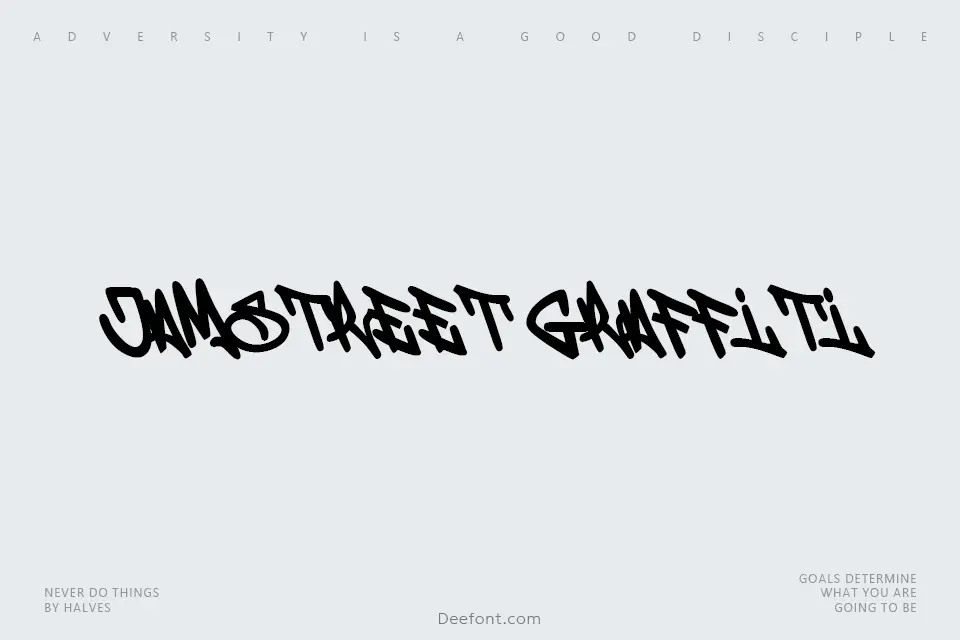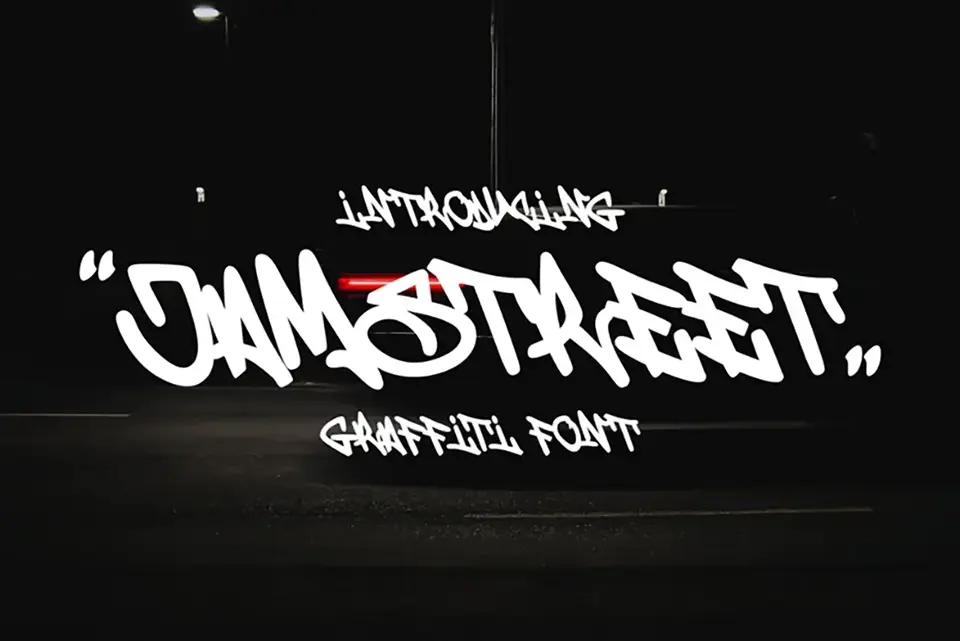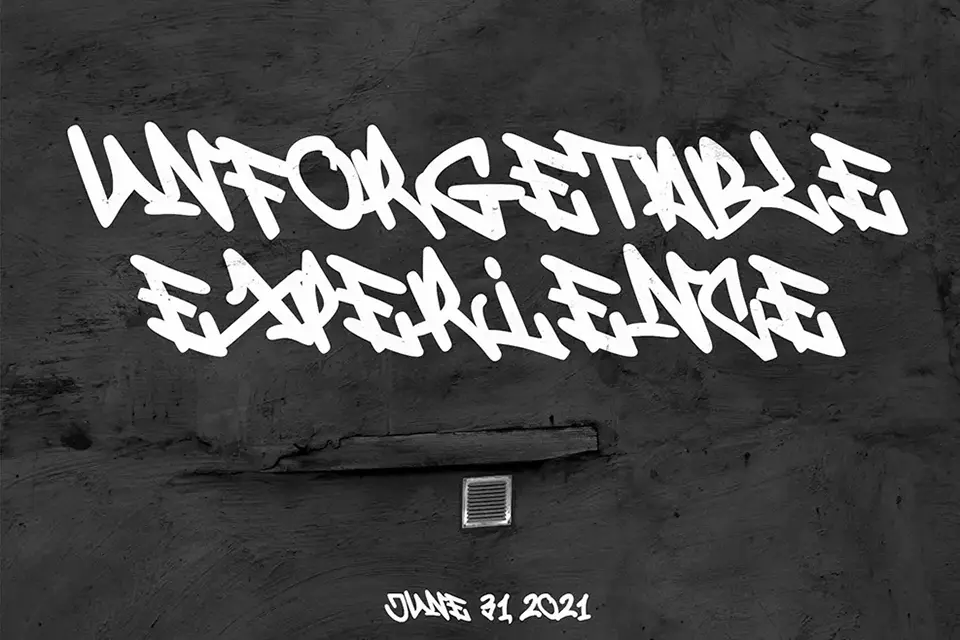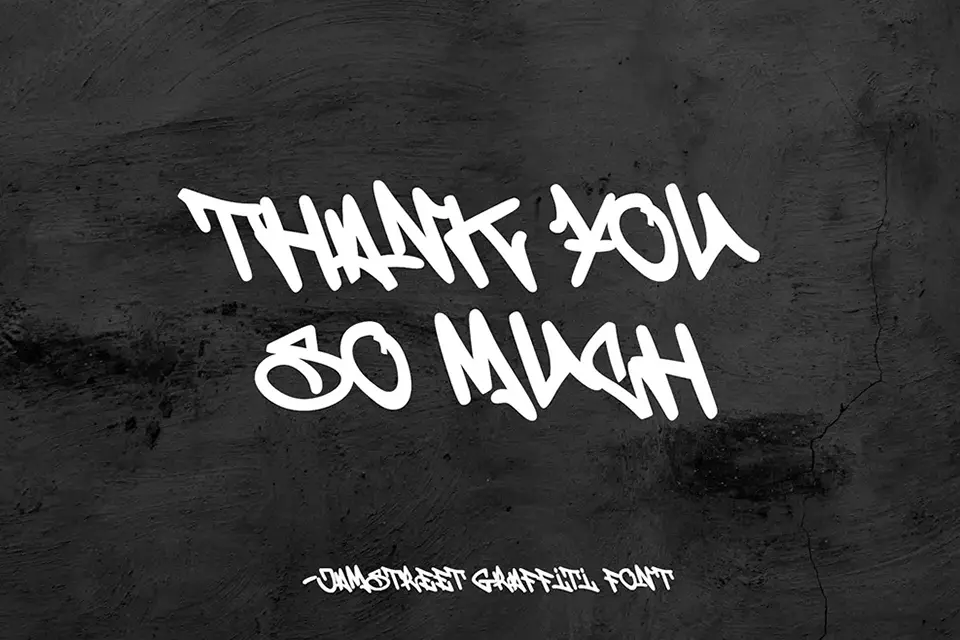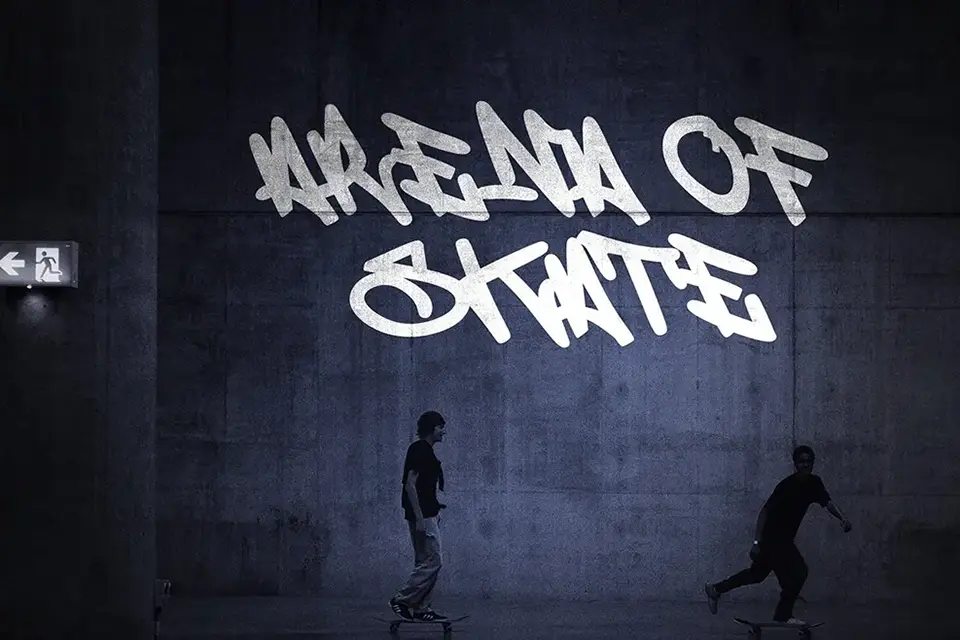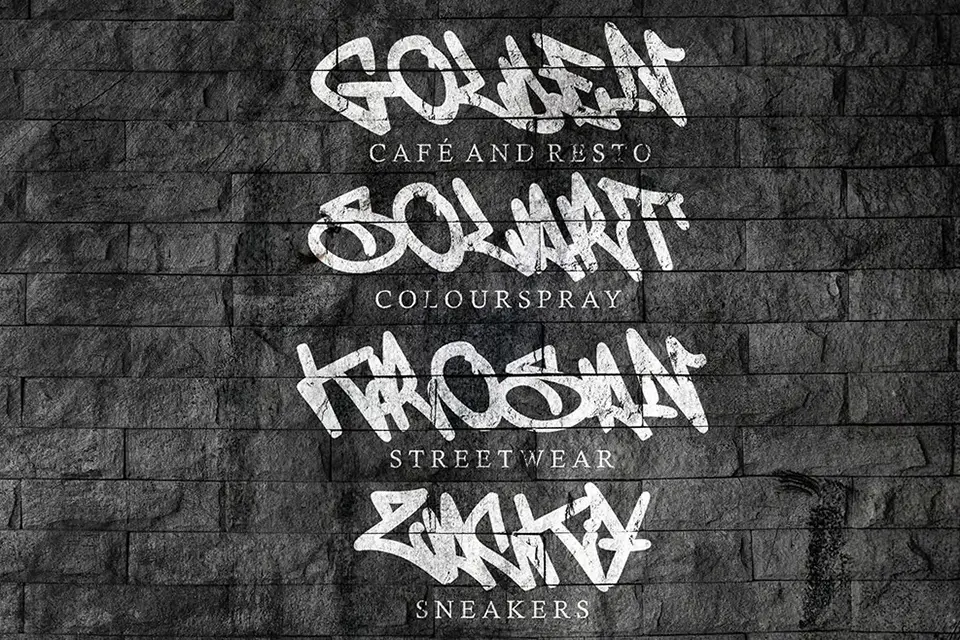
Jamstreet Graffiti Font
Jamstreet Graffiti is a dynamic graffiti script font designed by Cikareotype Studio, featuring bold and expressive letterforms inspired by urban street art. With its creative freehand style and 111 unique glyphs, this display font brings authentic street energy to posters, social media graphics, merchandise design, and creative typography projects. Perfect for designers seeking to add attitude and character to their visual communications.